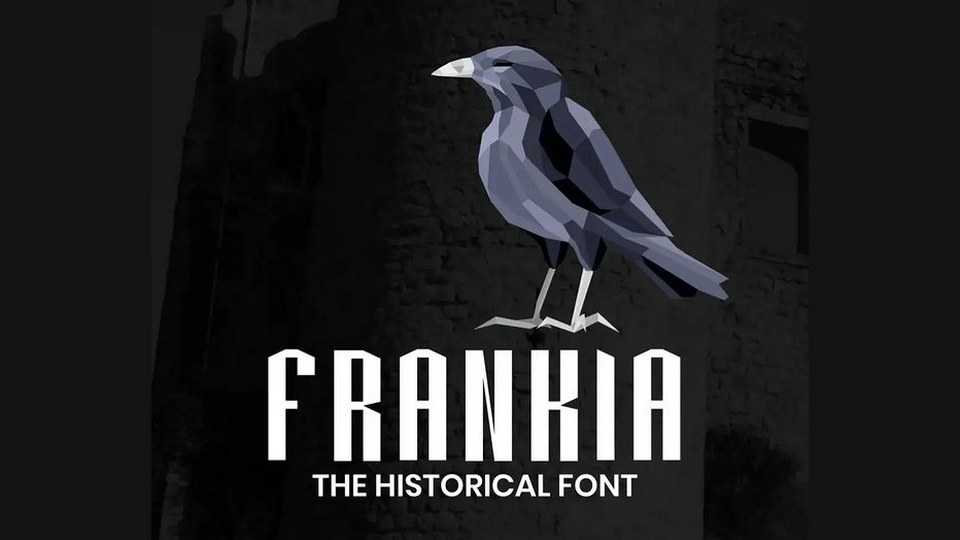
Download Frankia font, a display typeface created from a desire to update and geometrize graphic characters with the aim of the reaching the perfect crossing of two typographic families and between two eras.
Designer: Liam Moniez